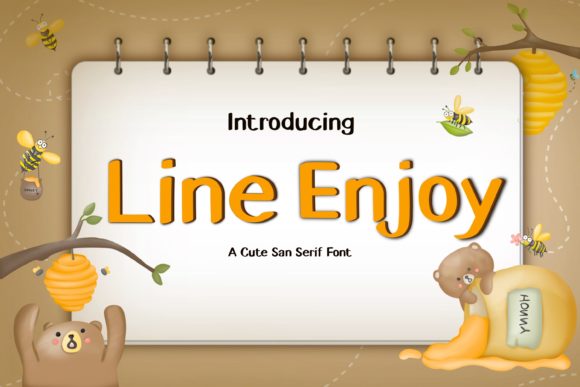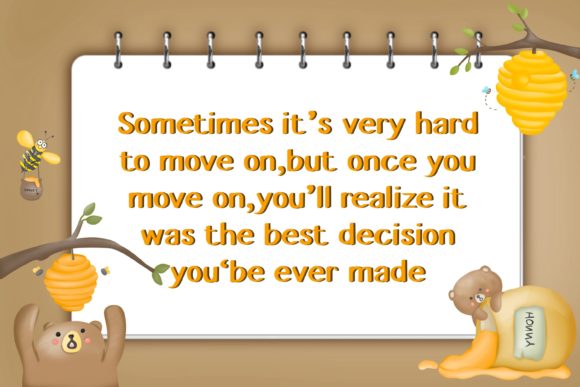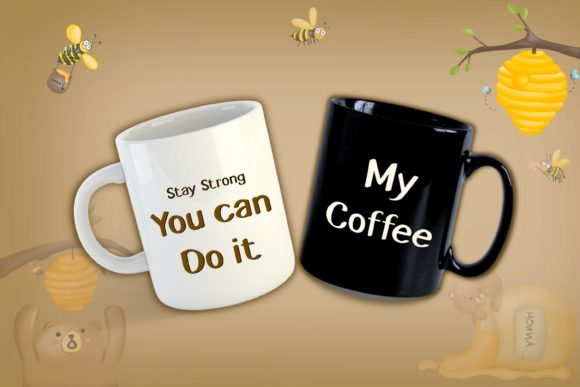
Introduction to Line Enjoy Font
Have you ever been working on a creative project, and the perfect font just eludes you? You’re staring at a blank screen, trying to decide between dozens of options, but nothing seems to capture the essence of your vision. That’s where Line Enjoy Font comes in – a high-quality sans serif font designed to elevate any creation.
With its adaptable nature, Line Enjoy Font is a versatile design resource that can be used for a wide range of applications, from social media graphics to blog posts and beyond. Whether you’re working on a free download or a paid project, this font is sure to bring a touch of professionalism and sophistication to your work.
As a valuable addition to your font library, Line Enjoy Font offers a transparent background, allowing you to seamlessly integrate it into your design without distractions. Whether you’re a seasoned designer or just starting out, this font is an essential resource that’s sure to become a go-to choice for your next creative project.
Key Features of Line Enjoy Font
- High-quality design: Line Enjoy Font is a premium font designed for creative projects, offering a unique and stylish aesthetic.
- Transparent background: This font features a transparent background, making it easy to use as a design resource for various backgrounds and layouts.
- Multi-resolution support: Line Enjoy Font is available in high-resolution (HD) and low-resolution (LD) versions, catering to different design requirements and display settings.
- Easy customization: This font is designed to be highly customizable, allowing designers to experiment with different styles and effects for their creative projects.
- Perfect for digital and print use: Line Enjoy Font is suitable for both digital and print applications, making it a versatile design resource for various creative projects.
Honest Review: Line Enjoy Font
As a designer, I’m always on the lookout for high-quality fonts to elevate my creative projects. I recently came across the Line Enjoy Font and was excited to give it a try. In this review, I’ll share my honest thoughts on this font.
- High-quality design: The Line Enjoy Font has a beautiful, modern design that’s perfect for a variety of creative projects.
- Transparent background: This feature is a game-changer for designers who want to customize their designs with ease.
- Limited styles: While the font itself is well-designed, it’s a bit limited in terms of styles and variations.
- Not ideal for complex texts: Due to its simplicity, the Line Enjoy Font may not be the best choice for complex or lengthy texts.
Overall, I’m impressed with the Line Enjoy Font, but it’s not a one-size-fits-all solution. If you’re looking for a simple, modern font for a design project, this could be a great choice. However, if you need a font with more complexity or style options, you may want to consider other options.
Tips for Getting the Most Out of Line Enjoy Font
For the best results, use Line Enjoy Font in conjunction with a high-contrast color scheme and a clean design aesthetic. You can also experiment with different font sizes and combinations to create a unique and eye-catching visual effect. As a free download, Line Enjoy Font is a valuable design resource that can elevate your creative project.
Line Enjoy Font is perfect for a variety of design projects, including wedding invitations, business cards, and social media graphics. Its high quality and transparent background make it ideal for adding a touch of elegance to your design, and its free download status makes it a valuable resource for designers of all levels.